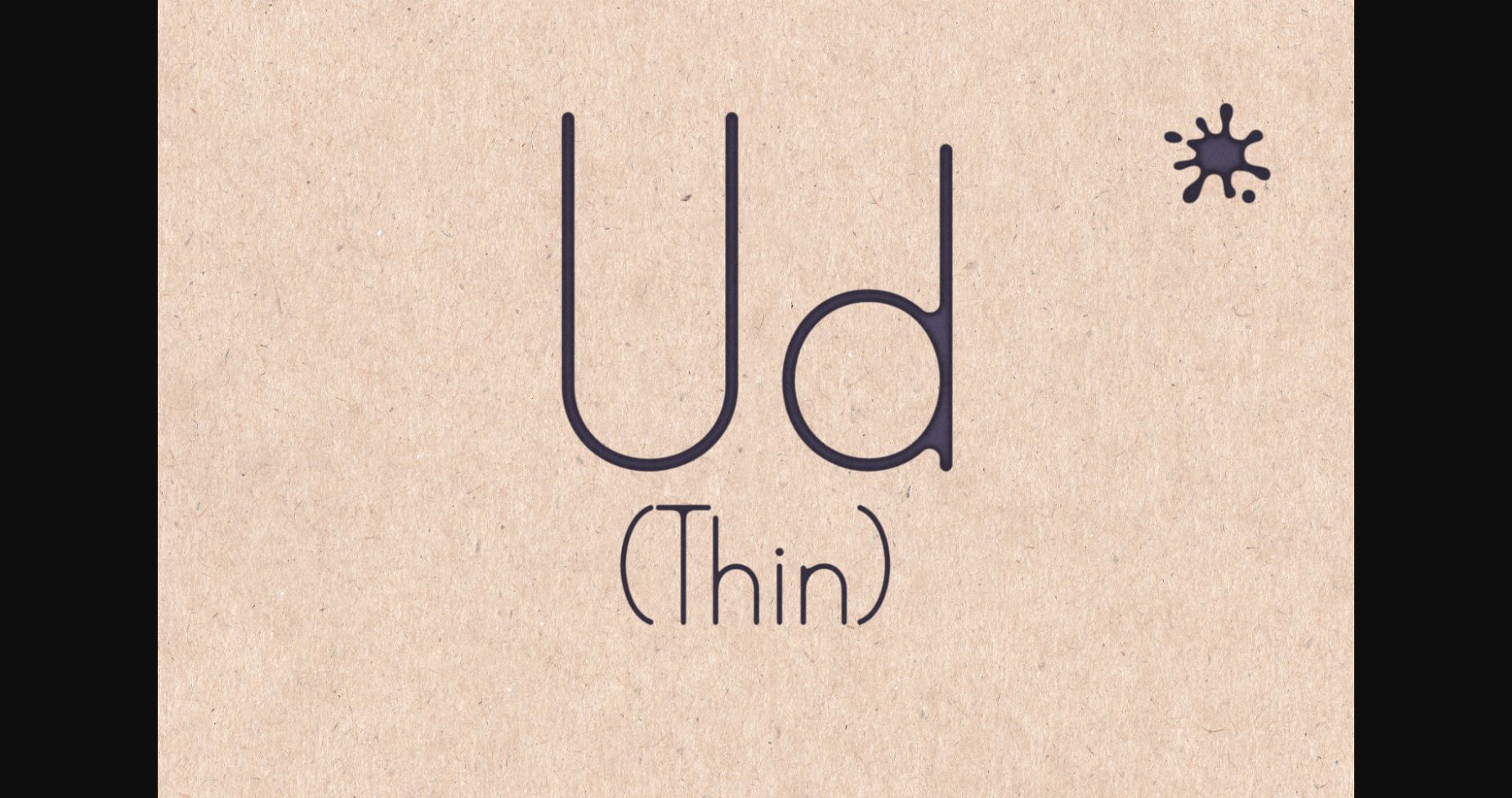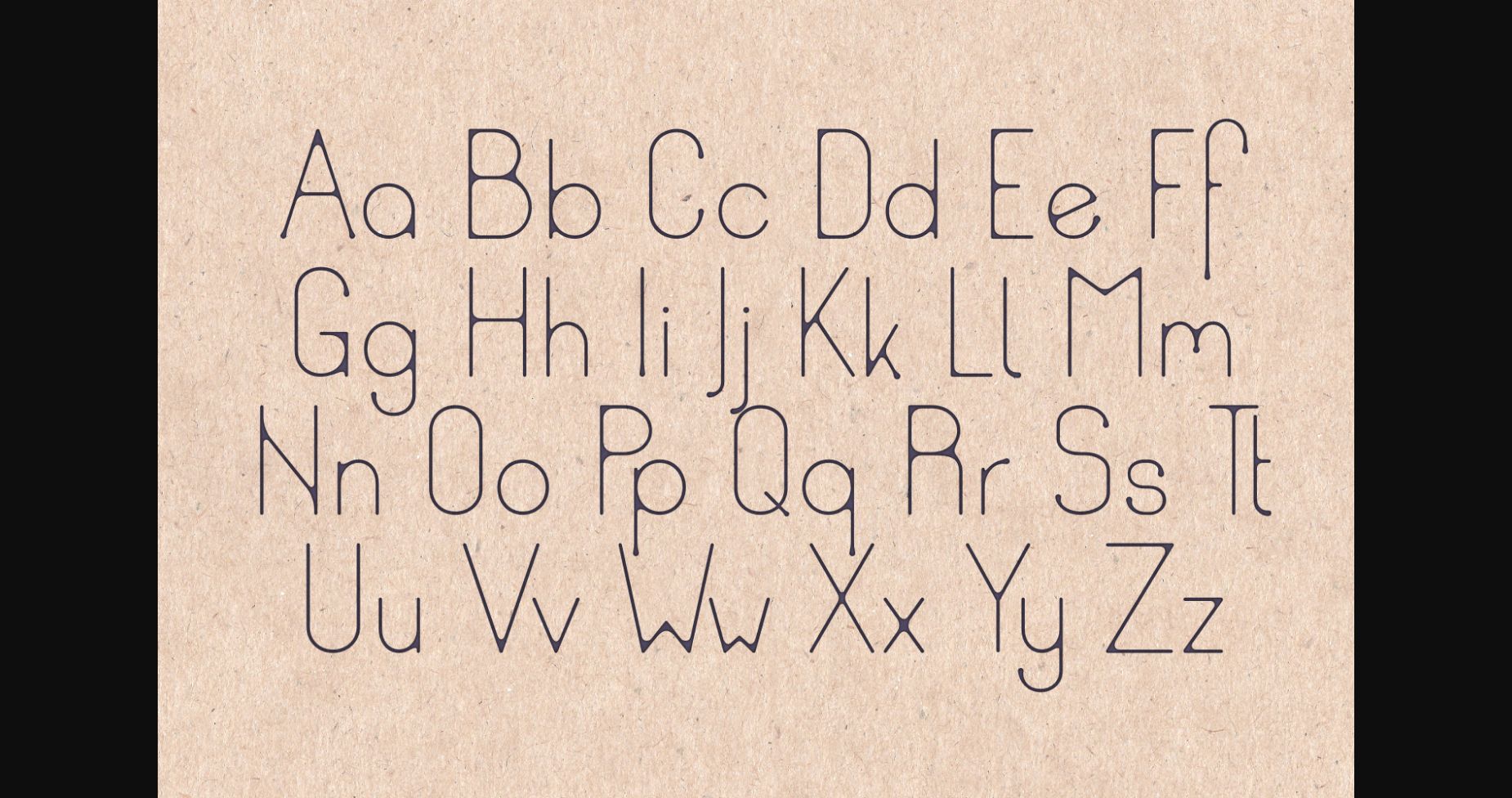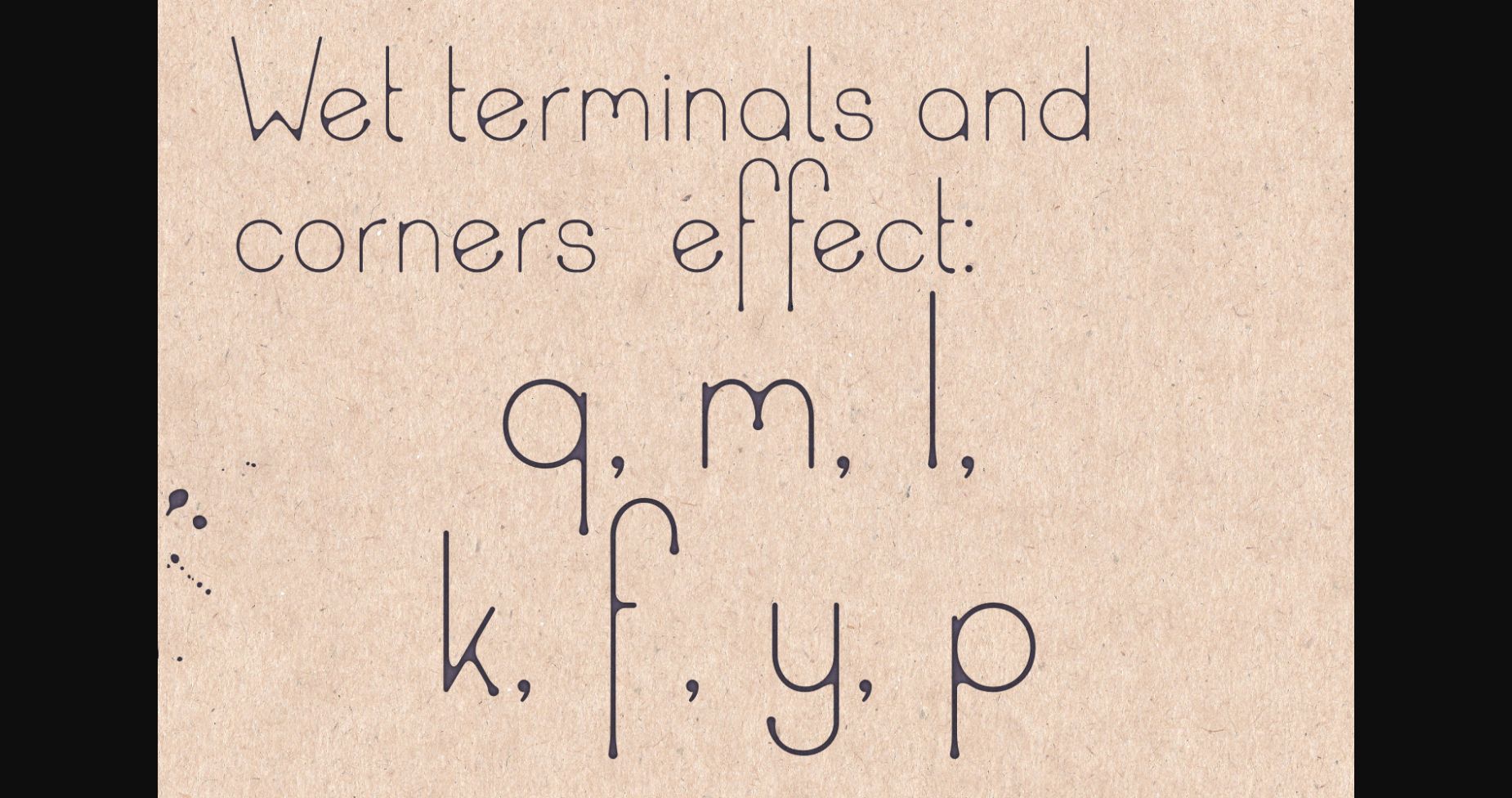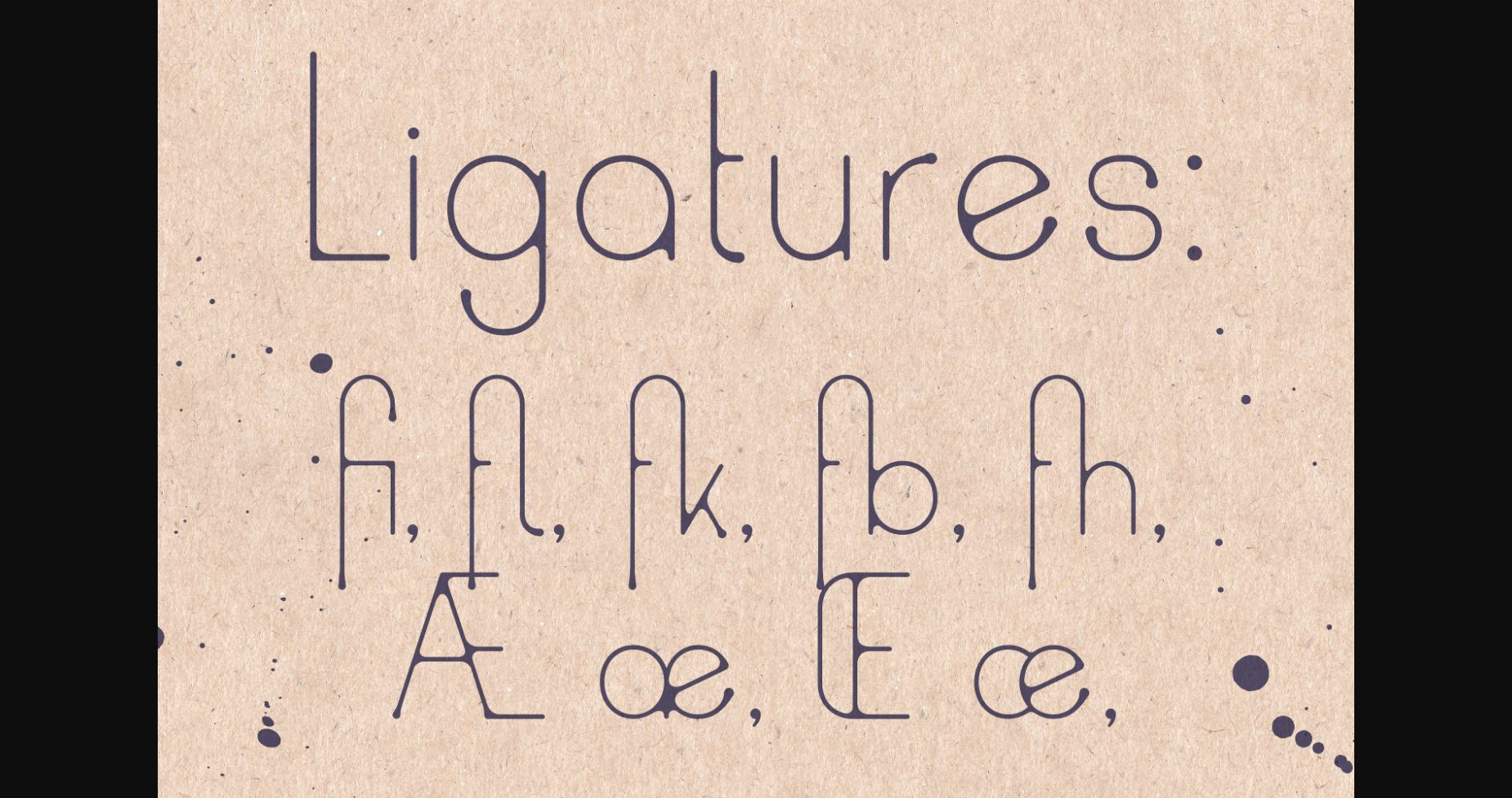
About Ud Font
Ud is a skinny lettered and cute sans serif font. It can easily be matched to an incredibly large set of projects, so add it to your creative ideas and notice how it makes them stand out!